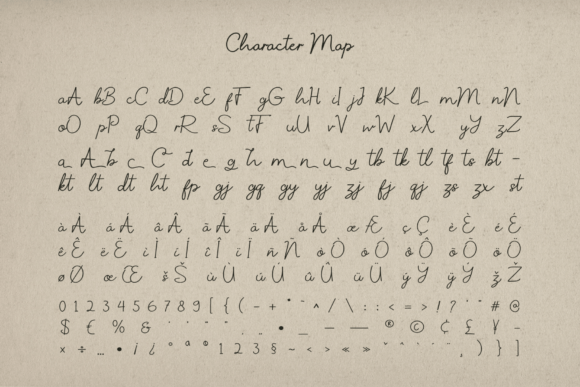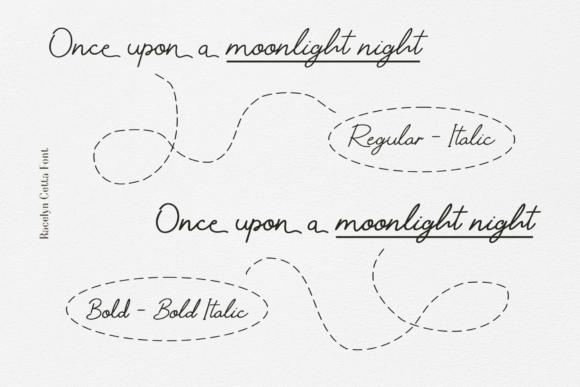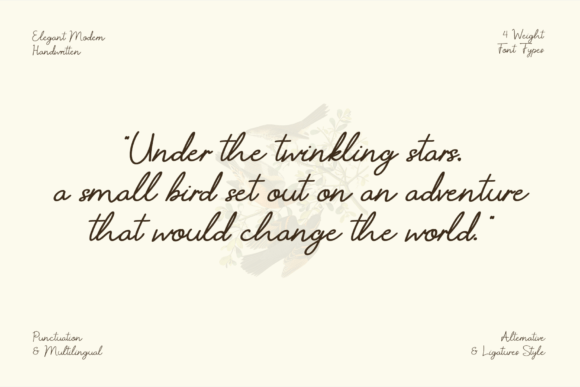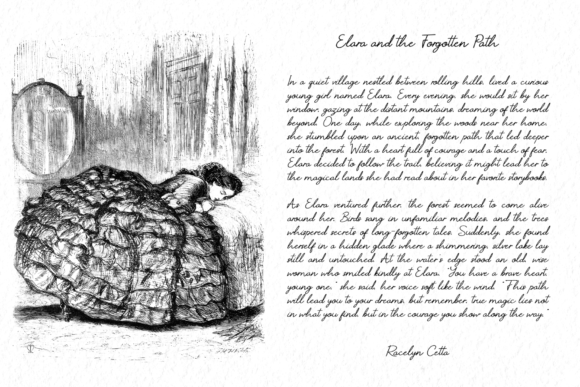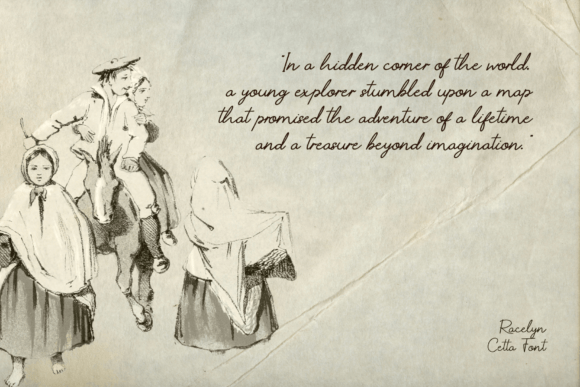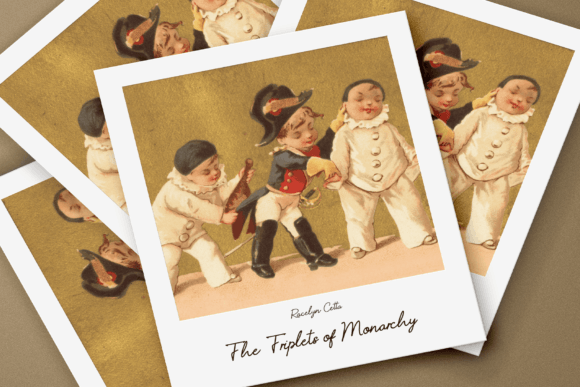
Introduction to Racelyn Cetta Font
Have you ever found yourself stuck in a design rut, searching for the perfect font to elevate your creative project? That’s exactly where I was when I stumbled upon the Racelyn Cetta Font. Its unique blend of elegance and casual charm immediately caught my attention, and I couldn’t wait to dive in and explore its possibilities.
As a designer, I can attest to the value of having a reliable and versatile font at your disposal. The Racelyn Cetta Font offers a clean, single-line design that exudes a modern aesthetic while maintaining a timeless appeal. With its fluid, natural flow and diverse style options, this font is a true design resource that can help you take your projects to the next level.
Honest Review: Racelyn Cetta Font
One of the standout features of the Racelyn Cetta Font is its ability to be used on a transparent background, making it perfect for creative projects where a clean and simple design is required. The high quality of the font is also noteworthy, with crisp and clear lettering that’s sure to impress.
Overall, I’m really impressed with the Racelyn Cetta Font. It’s a high-quality resource that’s perfect for designers looking to add a touch of elegance to their creative projects. With a few minor limitations, I’d definitely recommend it to anyone looking for a reliable and versatile font.